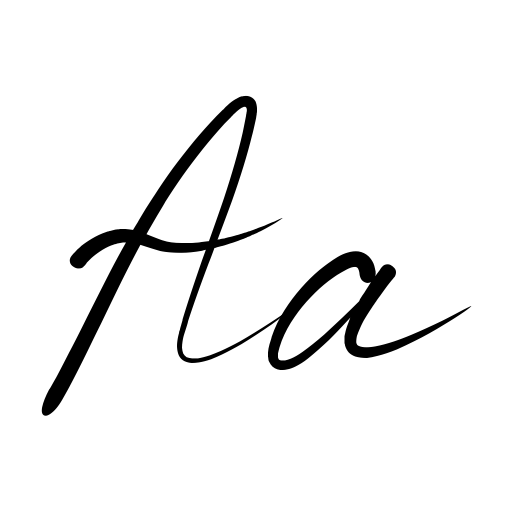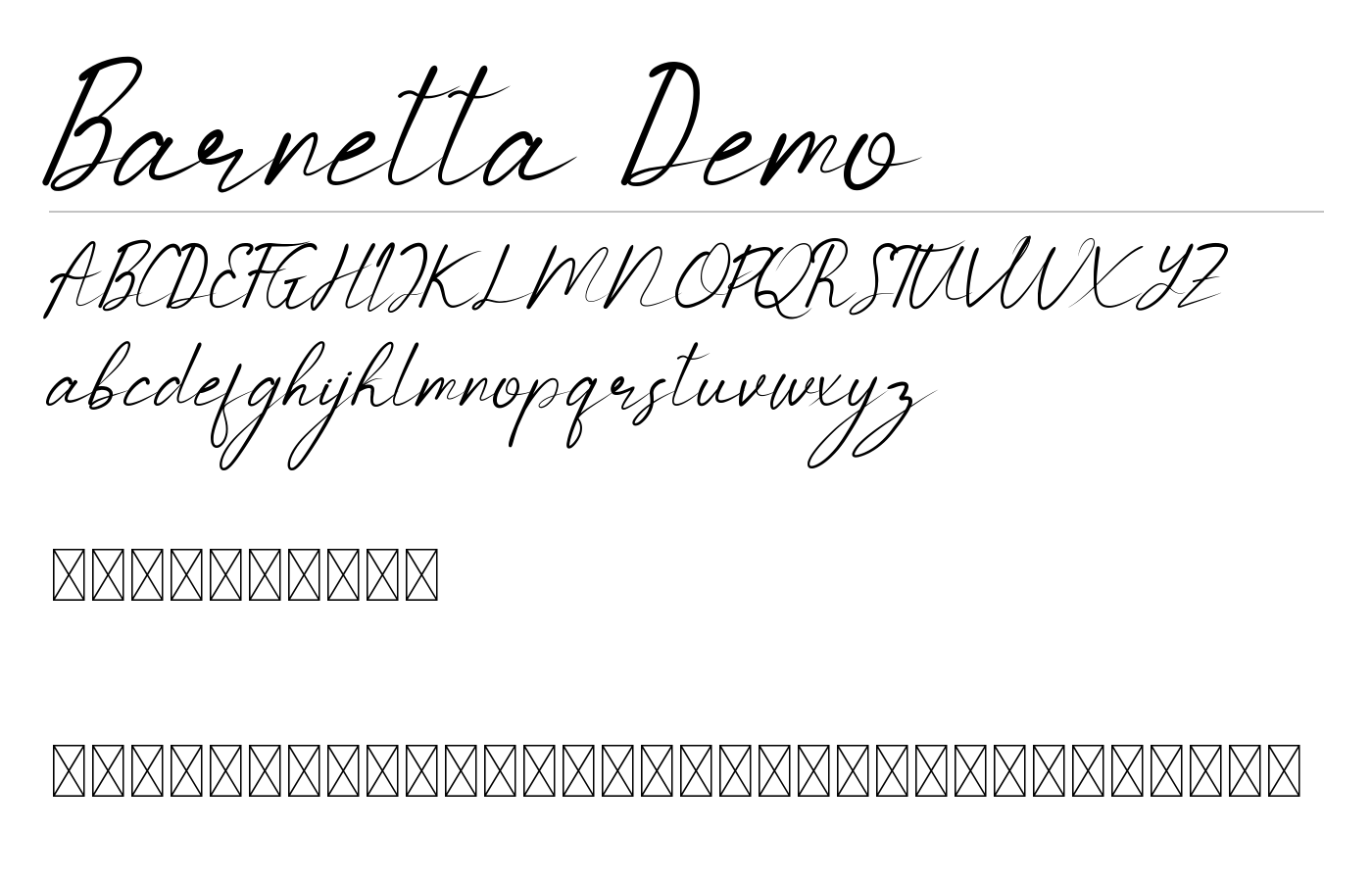
Barnetta Demo is an elegant, handwritten script font characterized by its slender, flowing strokes and graceful letterforms that evoke a personal, artistic touch. Its delicate, slightly condensed style with high contrast and smooth curves makes it ideal for stylish branding, invitations, and editorial headlines where a refined, expressive mood is desired. This font works well in designs that seek a modern yet intimate feel, adding charm and sophistication without overpowering the text.
Barnetta Demo Font
About Barnetta Demo Font
| Font family | Barnetta Demo Font |
| Designer | Fahri Firdaus |